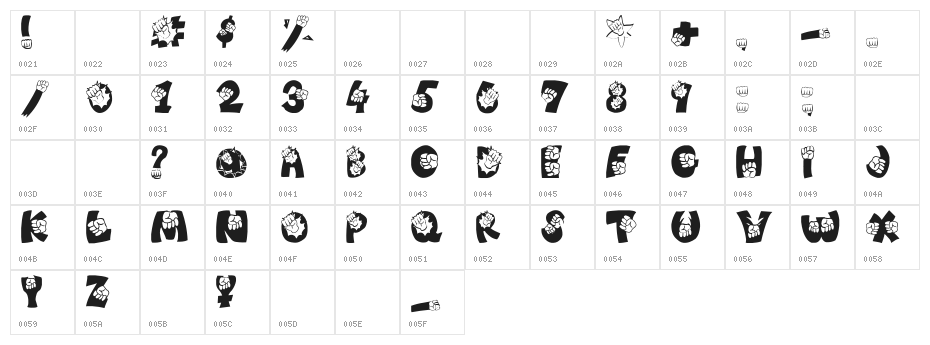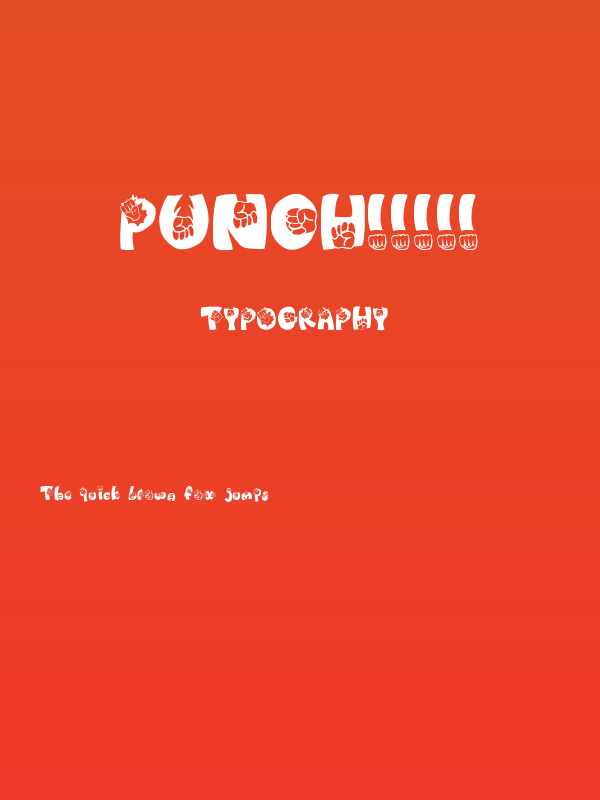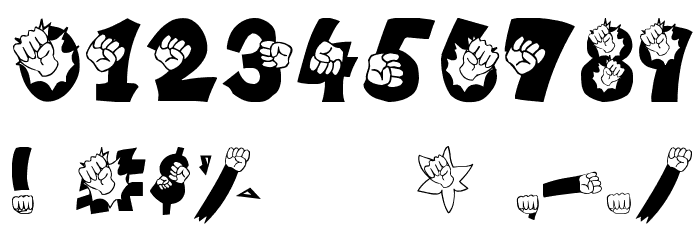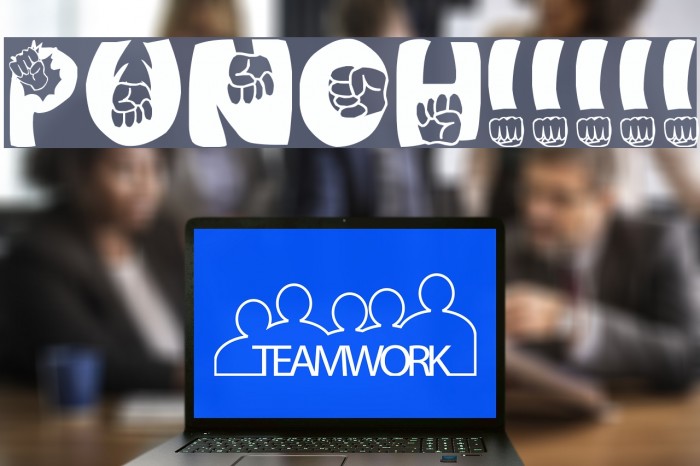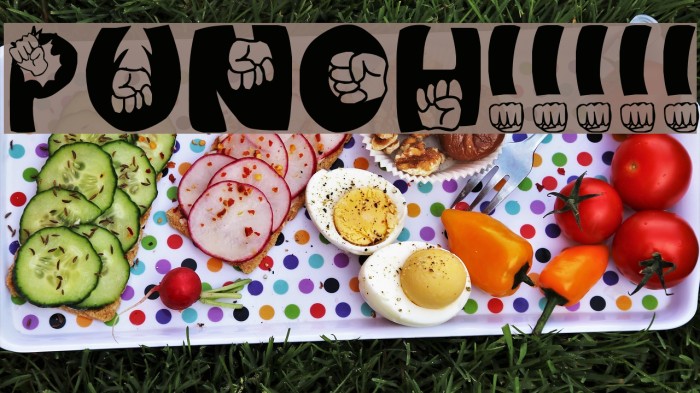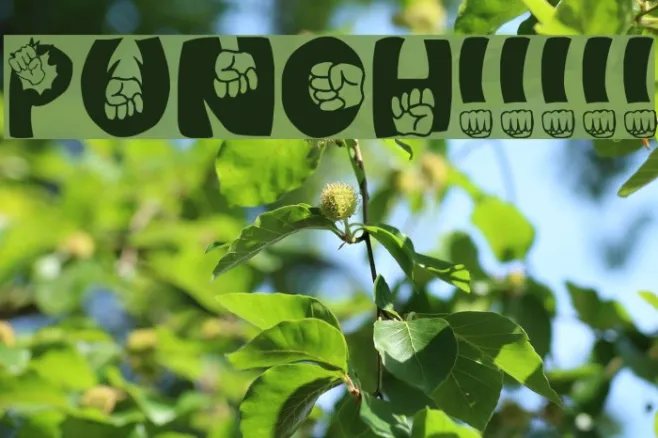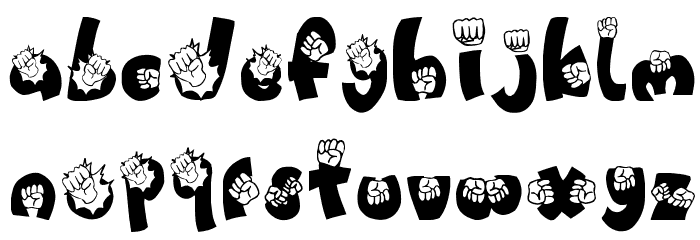
PUNCH!!!!! Font
PUNCH!!!!! Description
This font features a bold and dynamic design with each character incorporating a stylized fist motif. The letters are chunky and robust, giving a sense of strength and impact. The fists are cleverly integrated into the characters, adding a unique and playful element to the overall design. This font is highly decorative, making it stand out with its distinctive and energetic appearance. The uppercase and lowercase letters maintain a consistent style, while the numbers and special characters follow the same thematic approach, ensuring a cohesive look across all elements.
| Proposed Projects | Ideal for comic book titles, action-themed posters, video game graphics, or any project requiring a bold and energetic typeface. |